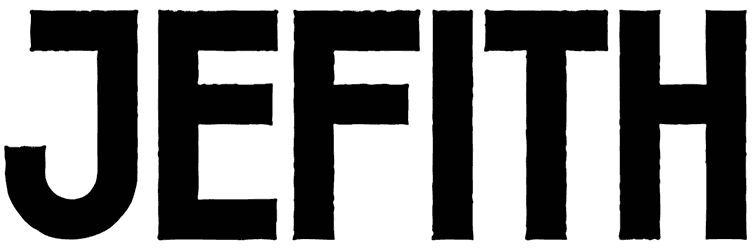
Jefith Font
If you are the type of person who is into vintage designs, this could be fun for you. Jefith is a stamp font with a rough and bold mood and consists of two styles, simple and patterned.
There are no lowercase letters or numbers, but it has two sets of capitals with various details in some of the letters that give you a chance to create combinations for flyers, covers, ads, and so forth.